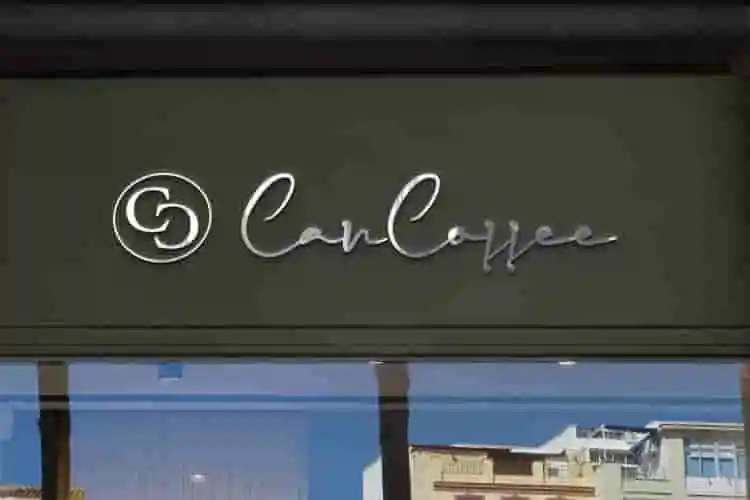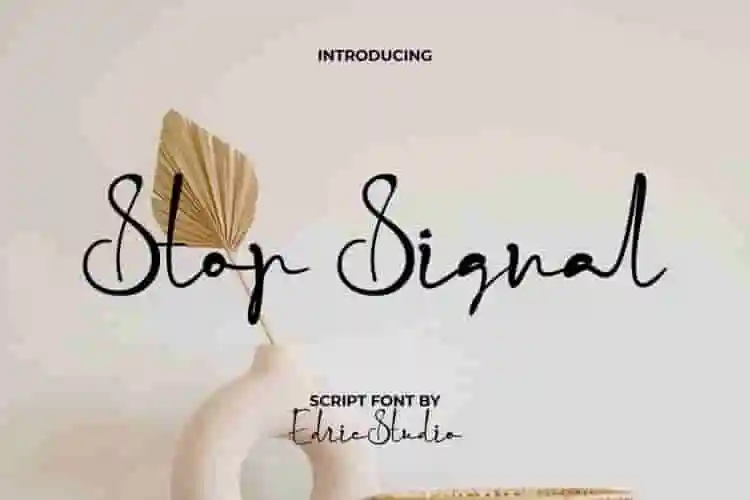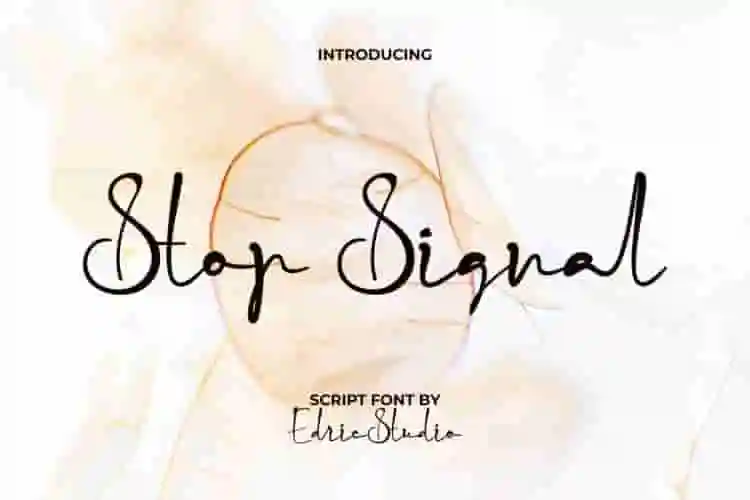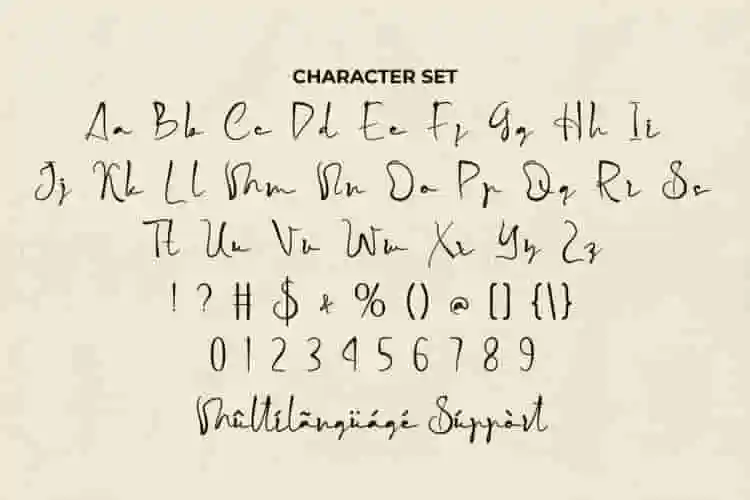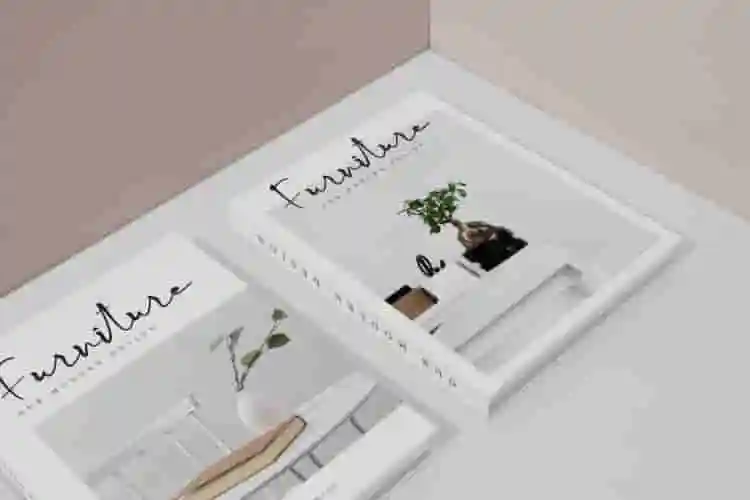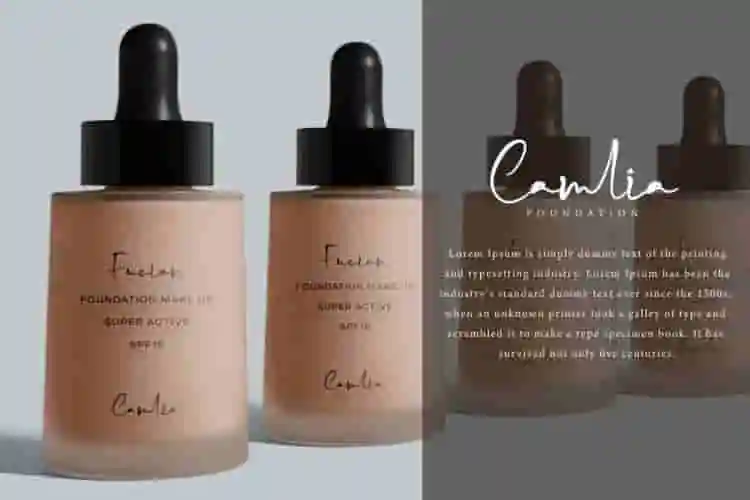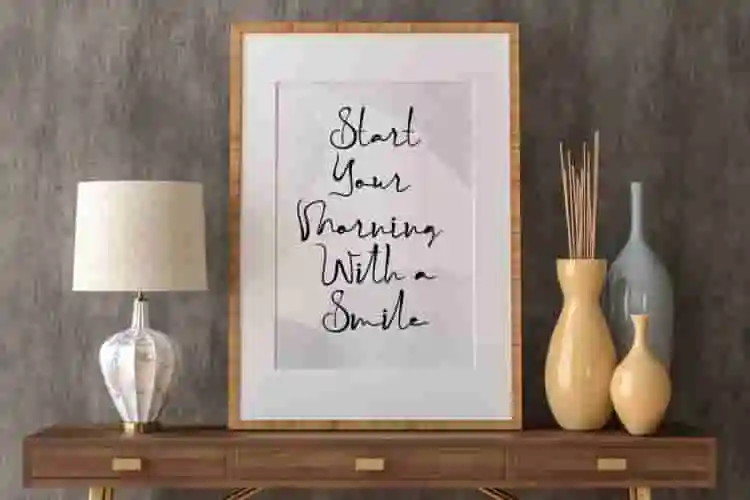
Stop Signal Font is a handwriting script font with ink drop look, created by EdricStudio. This type of typography will be suitable for many industries, such as café, cosmetic, fashion brand, furniture, handicrafts, homeware, restaurant, spa, and much more. It looks like a beautiful ink scribble written by an expert.
Stop Signal Font comes with a full set of Uppercase and Lowercase Basic Characters, Number, large range of Punctuation and Symbol. Also many pairs of Ligatures which make this font flow perfectly and more bound. It has a stunning characters set, perfectly managed with well spaced and kerning. Stop Signal Font will be great for any projects (with extended license) including : brand logo, labels, magazine catalog, menu, packaging design, quotes, signage, stationery, title, website, and more.
Introducing Stop Signal, a bold and confident handwriting font that speaks loud and clear. Designed to grab attention, this font blends the raw energy of hand lettering with a striking visual presence, perfect for designs that demand to be noticed.
Whether you’re creating posters, streetwear designs, branding, or digital content, Stop Signal Handwriting Font adds a rebellious yet stylish vibe. Its bold brush strokes and natural imperfections deliver the unmistakable feel of authentic handwritten fonts, giving your message a powerful personality.